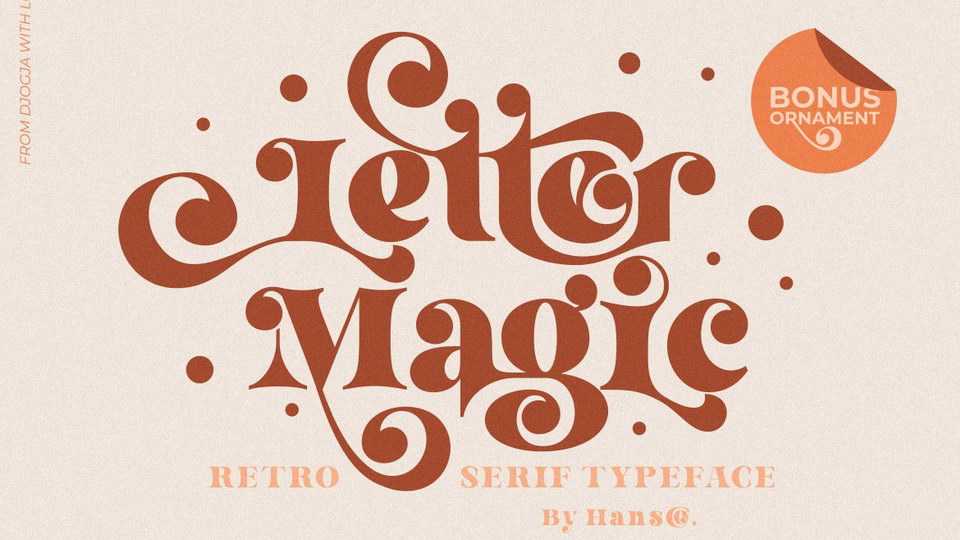
Download Letter Magic font, a fun and playful retro serif typeface. Letter Magic font is perfect for fashion related branding or editorial design and displays both masculine and feminine qualities.
Designer: HansCo